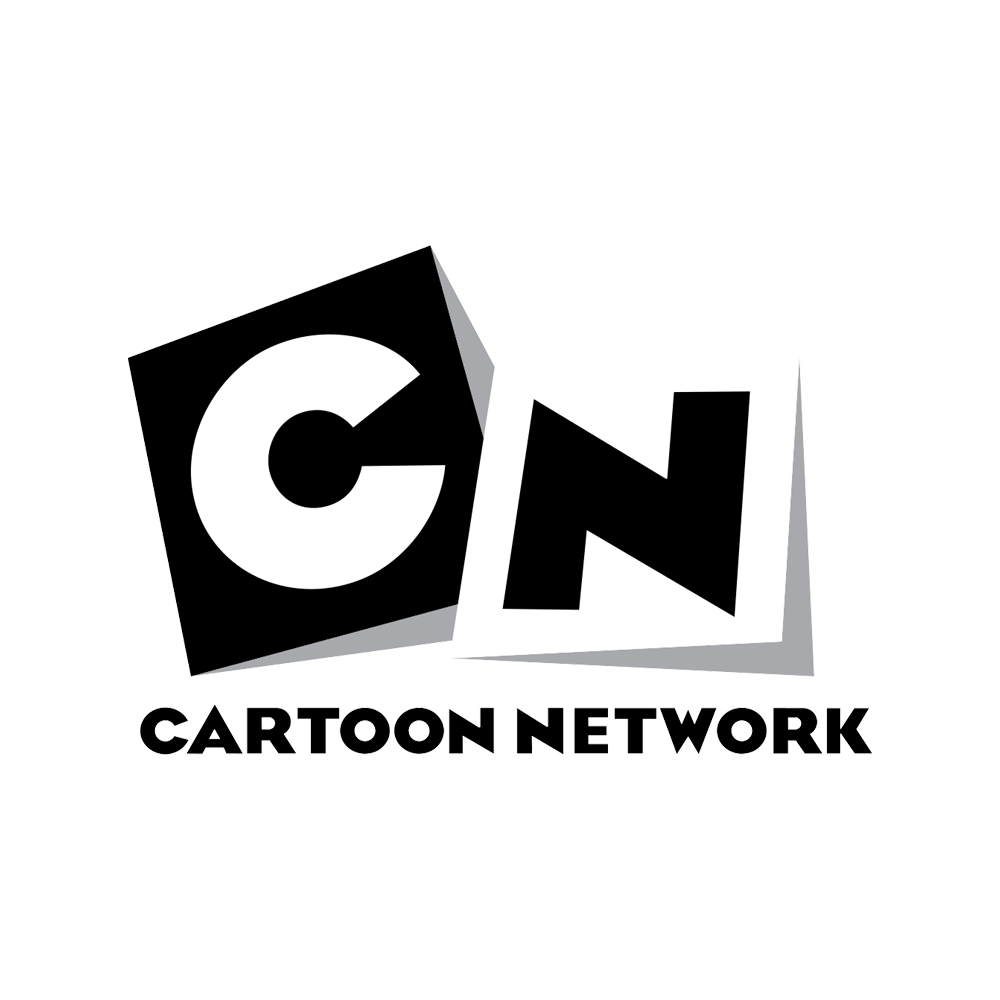
Cartoon Network Font
EntertainmentCartoon Network is an American cable television network known for its animated programming, including popular shows such as Adventure Time, The Powerpuff Girls, and Teen Titans Go! It was launched in 1992 and is now a part of the Warner Bros. Entertainment company.
The Cartoon Network logo currently in use since 2010 is an updated version of its previous cube and initials design. It features a modern geometric sans serif font known as CN Bold, owned by Cartoon Network. A similar free font that resembles the logo is Cartoon Slam designed by James Loby, which can be downloaded for free from the Fonts Used Section.